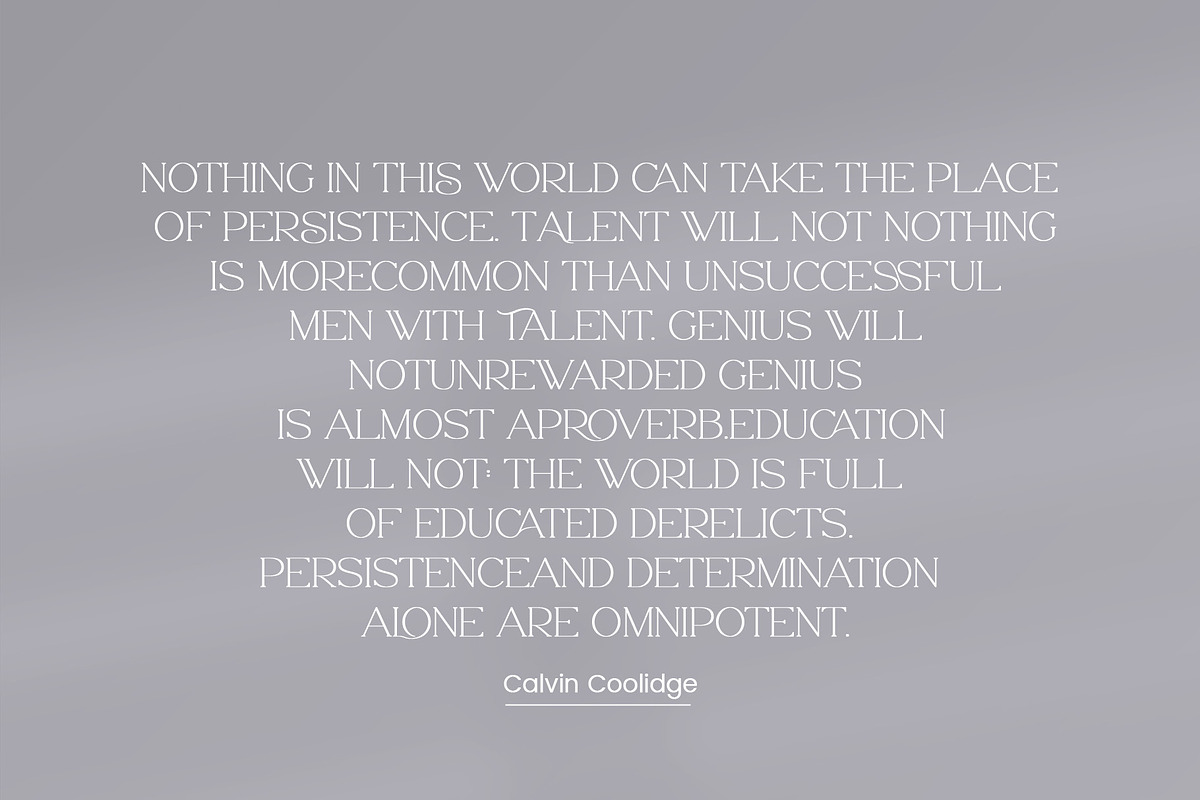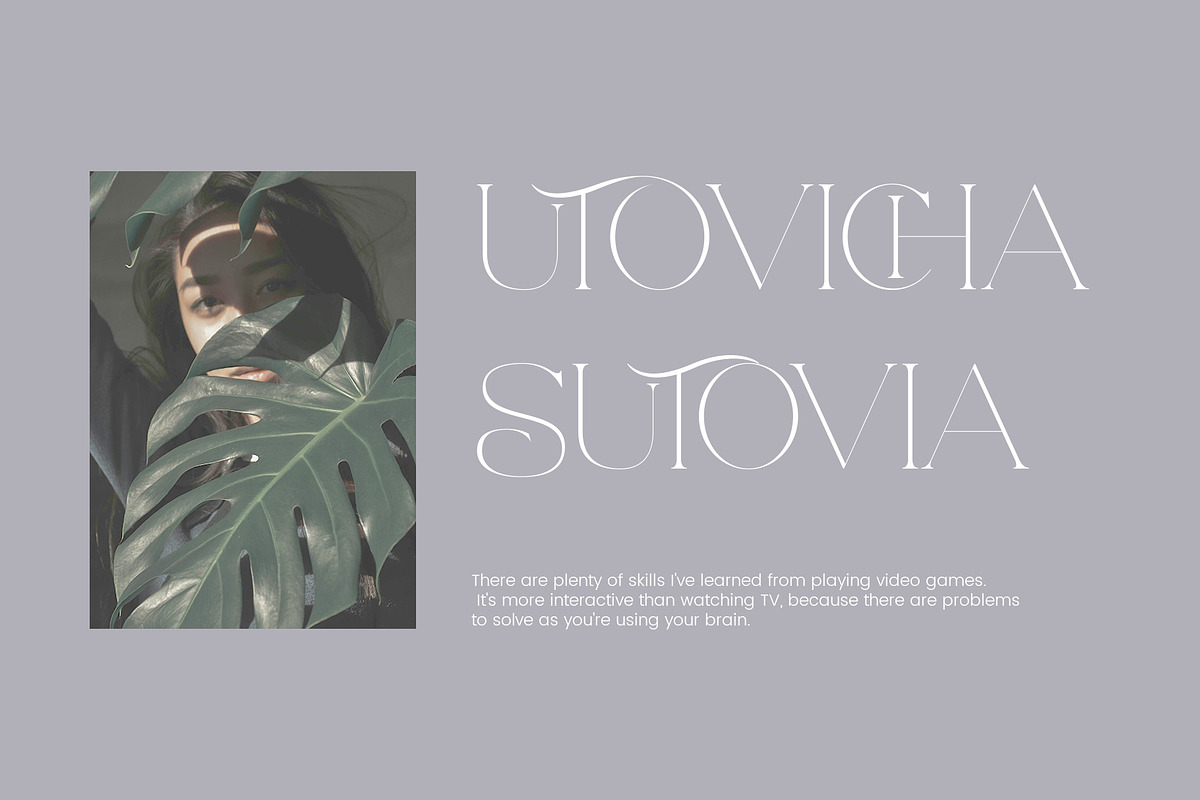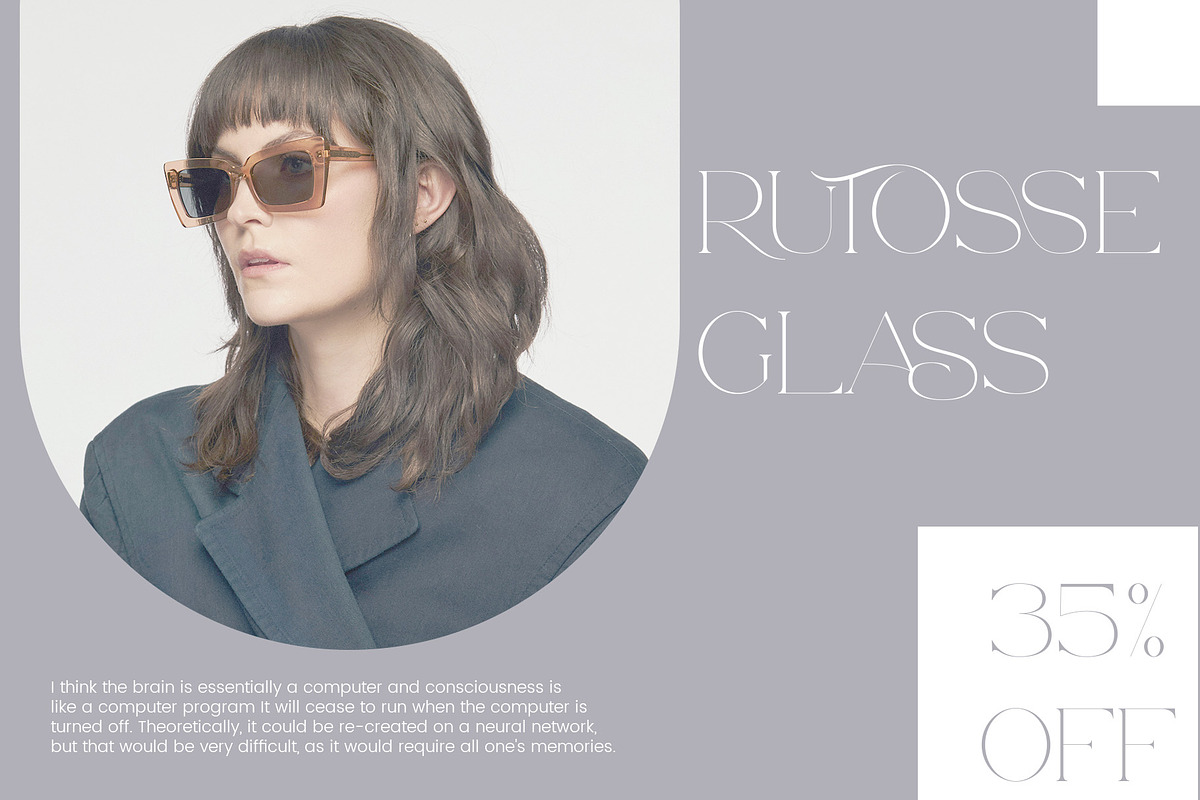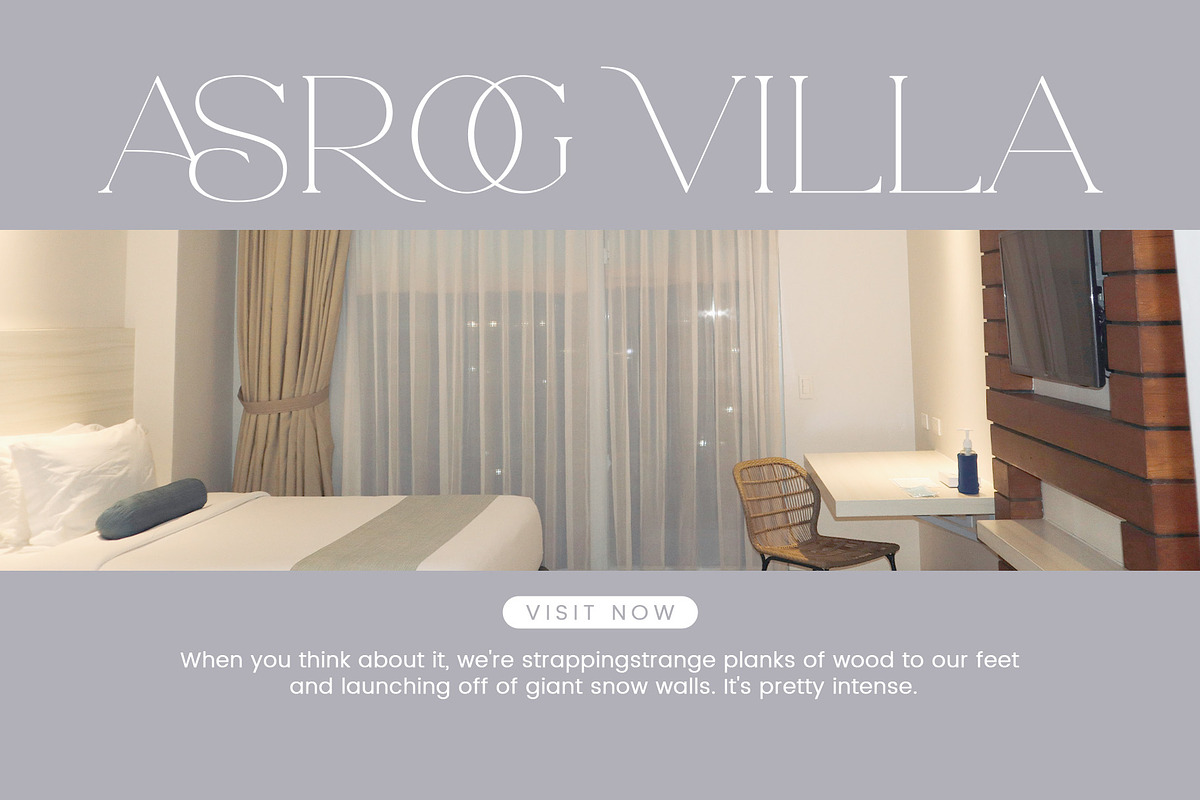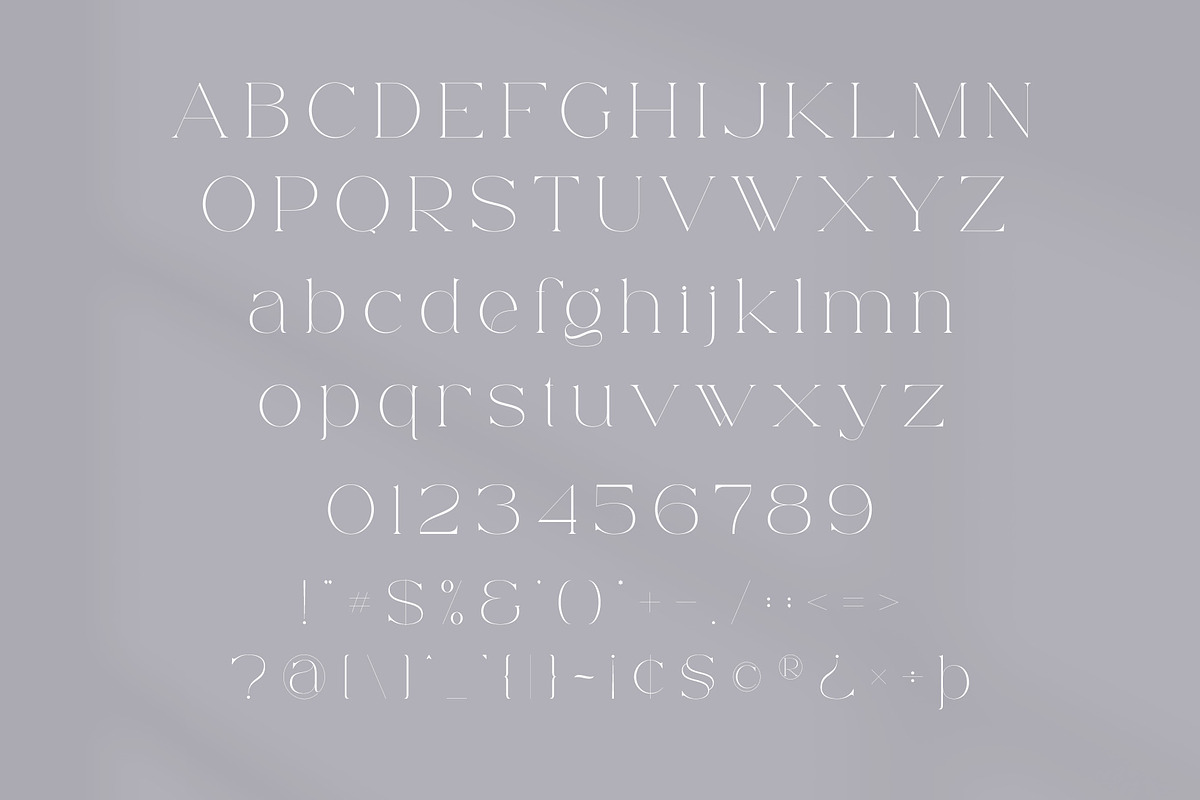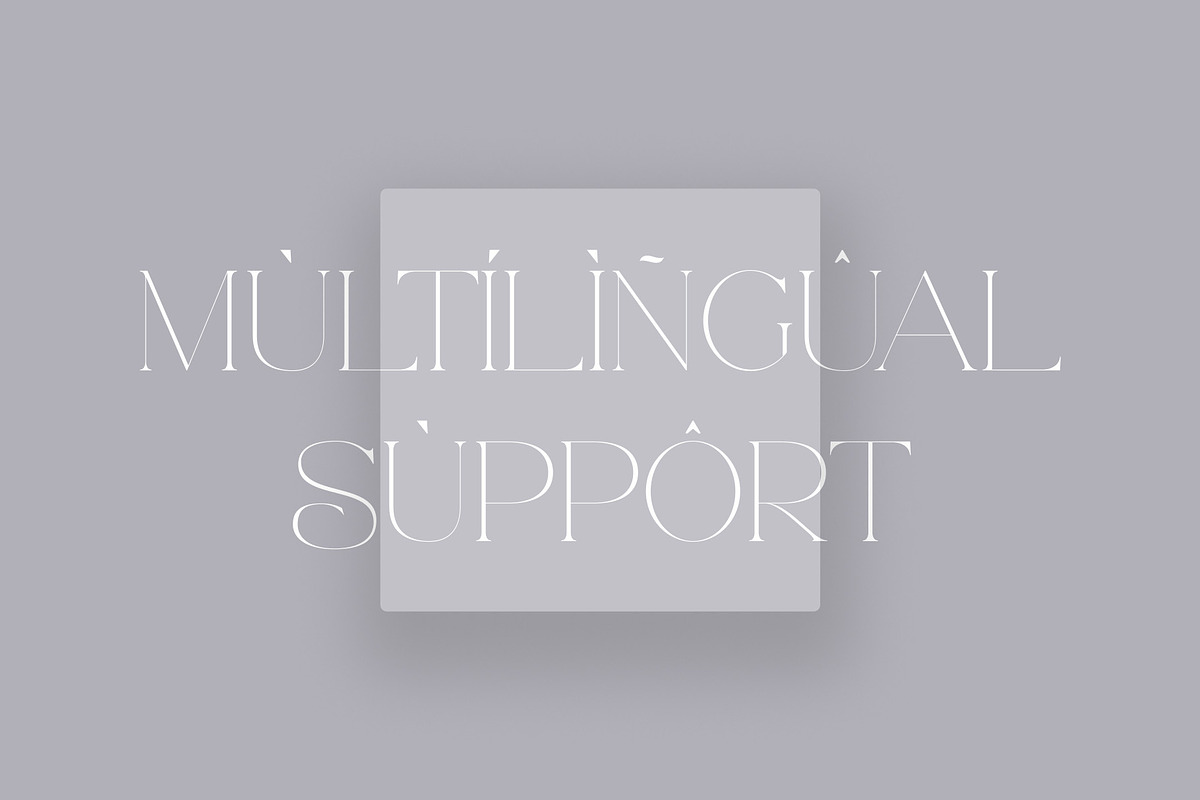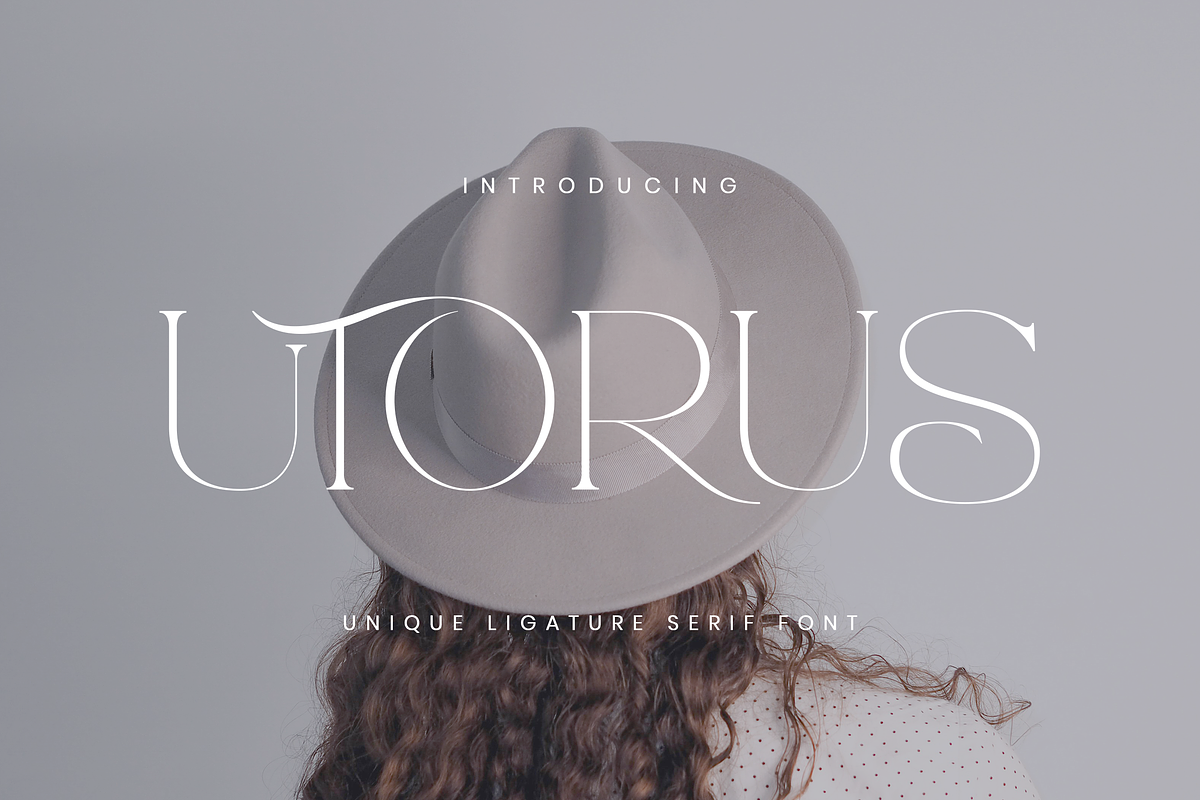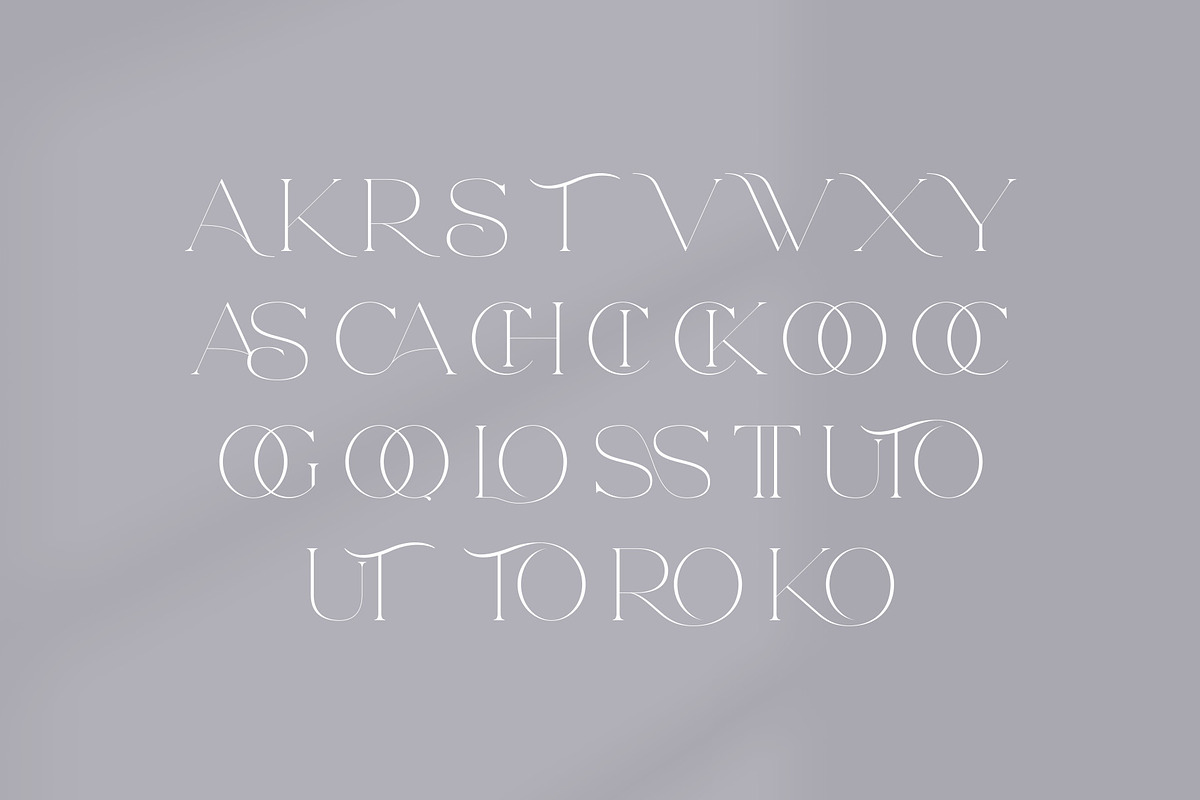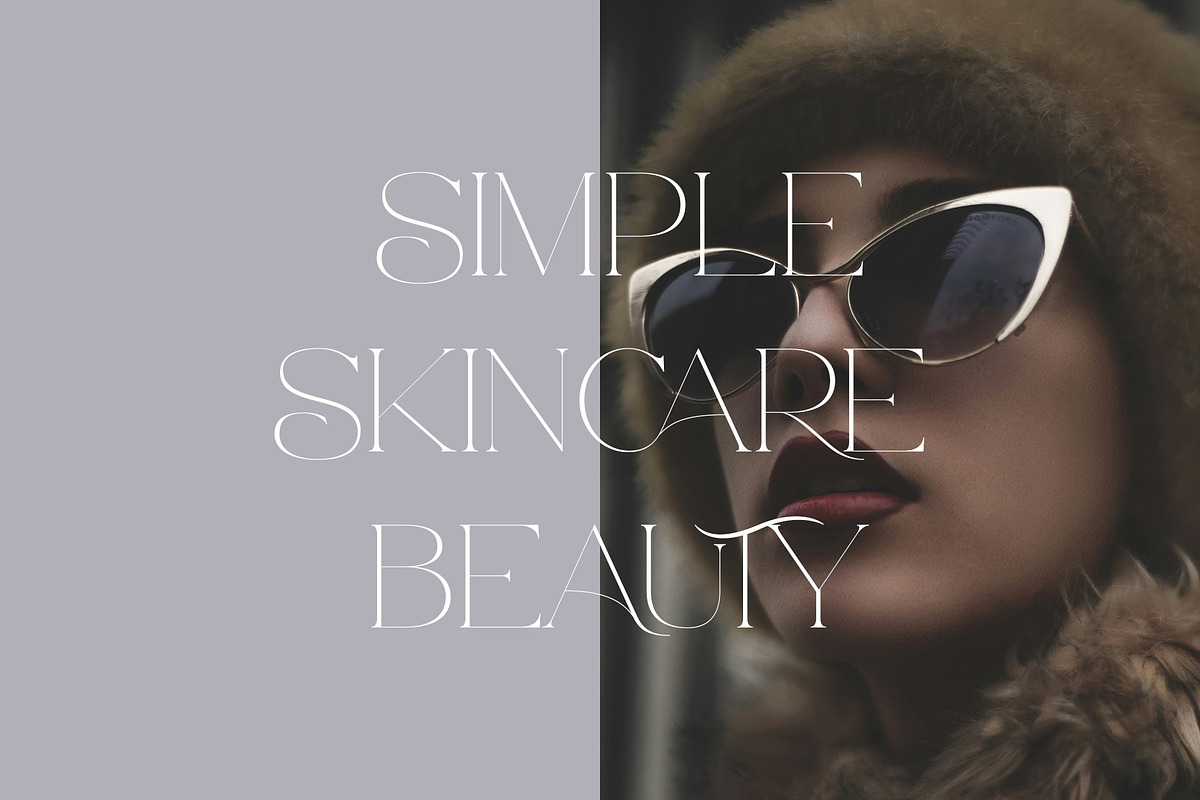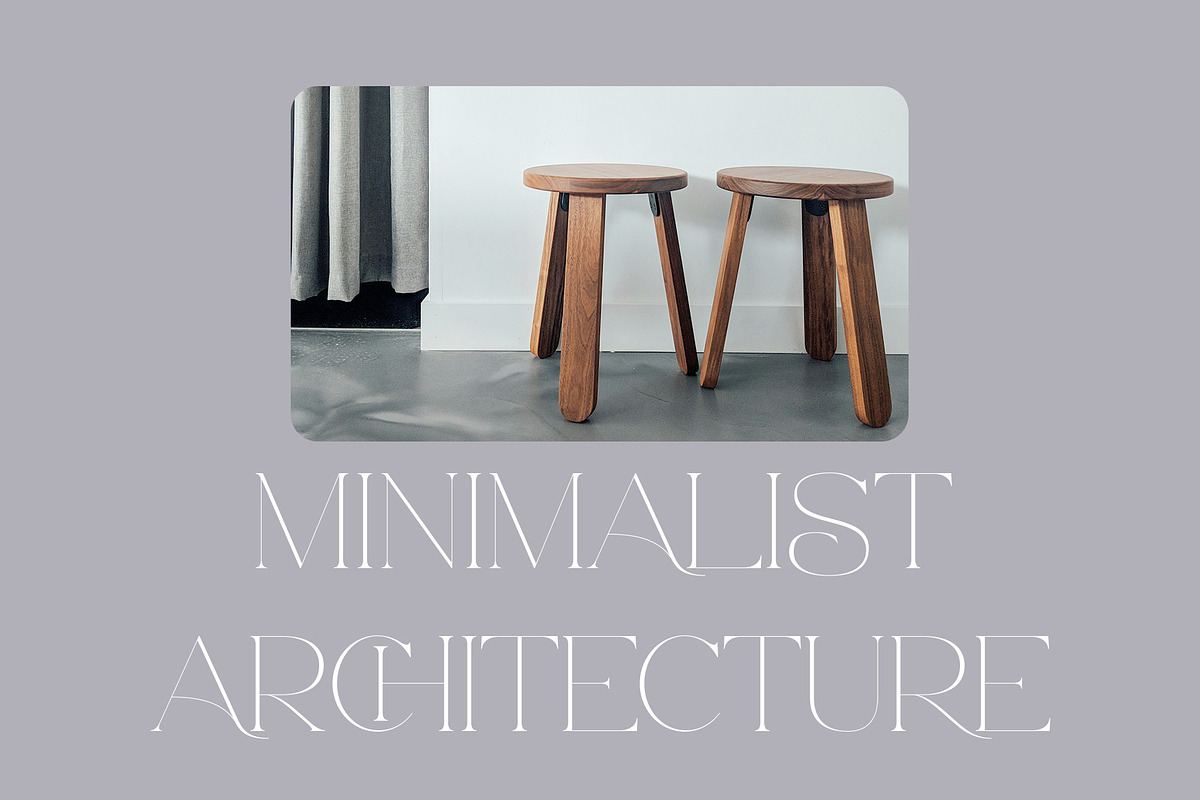
Utorus - Unique Serif Font
Utorus Stylish Ligature Typeface, inspired by the famous minimalist logo perfect for the purposes of designing templates, brochures, videos, advertising branding, logos and more.